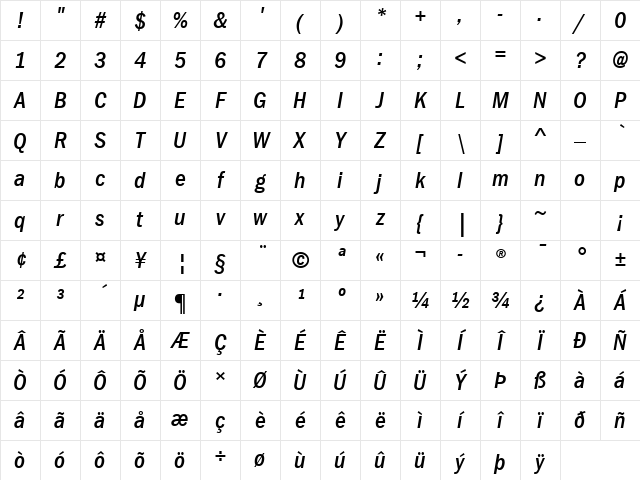
ITC Franklin Gothic LT Com Medium Condensed Italic
Style: Medium Condensed Italic
Designer: David Berlow
Design Context for ITC Franklin Gothic LT Com
ITC Franklin Gothic LT Com takes a clean, functional approach - its unadorned letterforms prioritise legibility and work reliably across screen and print environments. The slanted form adds forward momentum and visual energy. Its slender proportions lend an understated elegance to any composition. Its narrow stance lets it pack a punch even in space-constrained designs.
Pro Tip: Use ITC Franklin Gothic LT Com tightly set in headlines and banners - its condensed proportions make it ideal for maximum impact in minimum horizontal space.